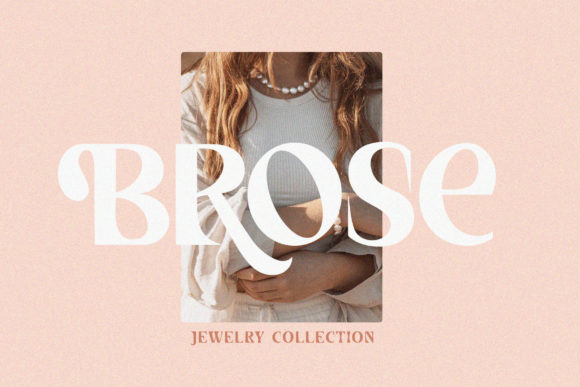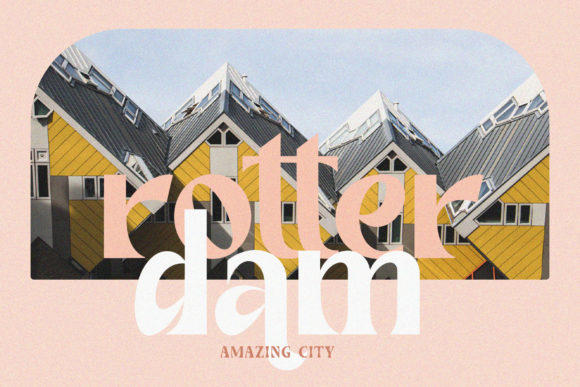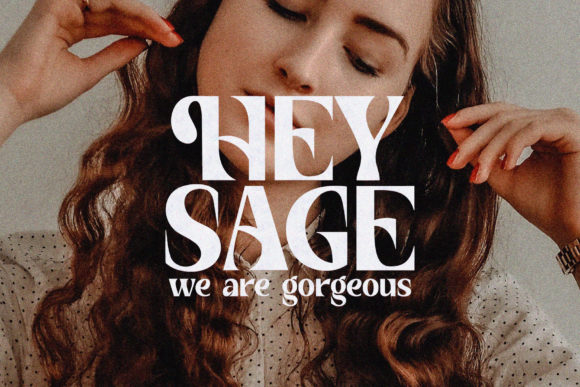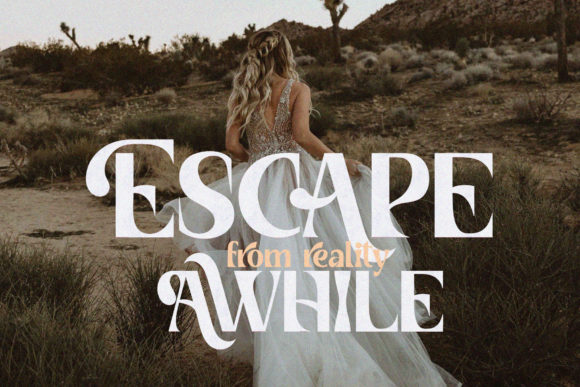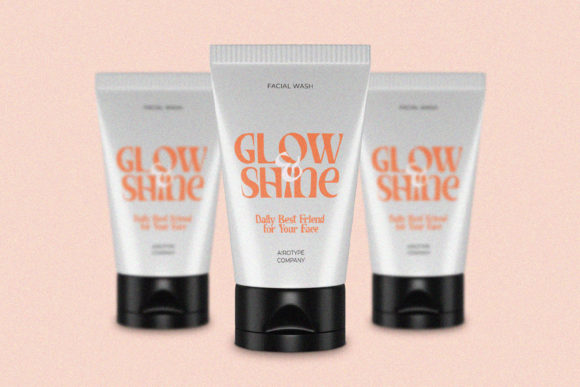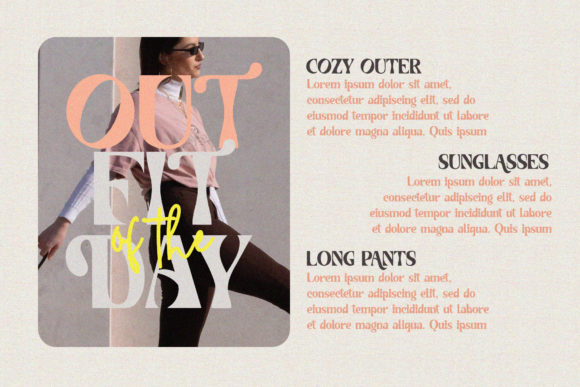
Introduction to Pearly Font
Pearly is modern serif font with a thick and solid style.
It has modern and vintage look This font is suitable font for many projects, for modern or even retro vintage design, branding, logo, crafting, sticker, sublimation, wedding invitation, and many more.